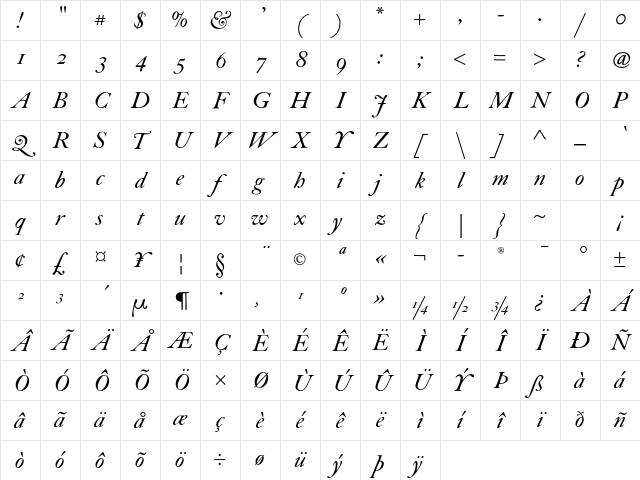
Complete FCaslon Thirty ITC Std Italic glyph index. Displaying only characters natively supported by FCaslon Thirty ITC Std Italic font.
FCaslon Thirty ITC Std is a composed and adaptable typeface that performs quietly and consistently across a wide range of design contexts. The slanted form adds forward momentum and visual energy.